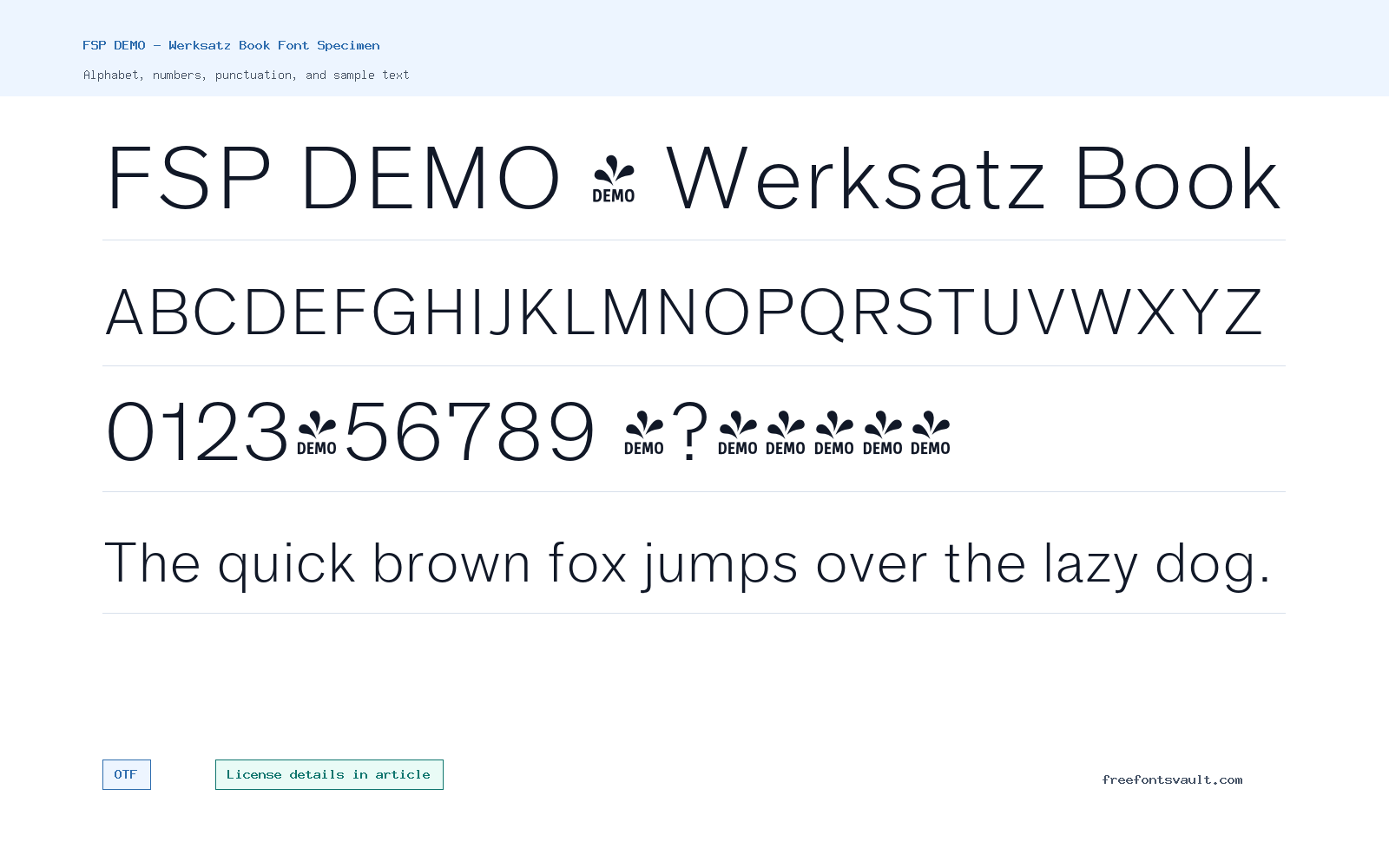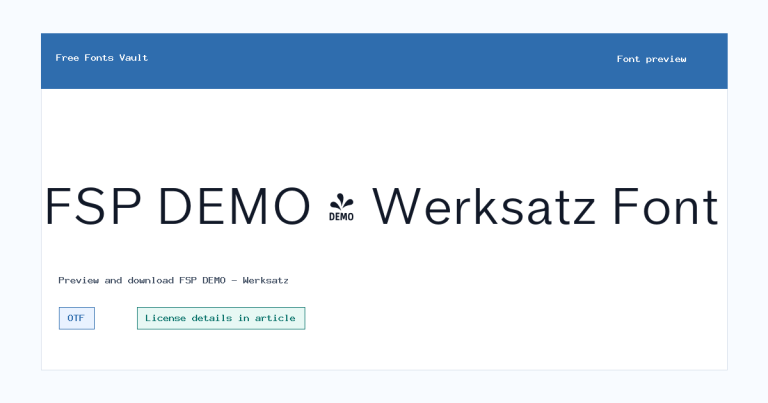
FSP DEMO - Werksatz Book
- Designer Moritz Kleinsorge
- Foundry Identity Letters
FSP DEMO – Werksatz Book font.
Werksatz Book is a regular-weight OTF font connected with Moritz Kleinsorge and Identity Letters. The downloadable file is the Book style, so it is best tested first in the preview tool with the exact words you plan to use.
About Werksatz Book
Werksatz Book is listed as a normal style with a 400 weight, which usually makes it the central text weight in a type family rather than a bold display cut. Since the font file is an OTF, it should work in most modern design apps and desktop font managers. Use the preview to check its spacing, punctuation, numbers, and mixed-case words before deciding how it fits your project.
For practical use, start with short paragraphs, menu labels, quotes, captions, or clean editorial headings. If you are testing it for body text, try several sizes and line heights, because a Book cut can feel different on screen than in print. Pair it with a more expressive display font only if the two styles stay clearly separate; for simple layouts, it may work better with quiet sans serif or serif companions.
When comparing it against other text faces, judge the rhythm of ordinary words rather than only a decorative sample. Try sentence case, a few long lowercase words, and a short paragraph. That gives a better sense of whether Werksatz Book can carry calm reading text or should stay in smaller supporting roles.
- Regular style with 400 font weight
- Normal, non-italic style suitable for baseline text testing
- Editorial-style headings and subheadings
- Short paragraphs and reading samples
- Captions, labels, and simple interface text
- Brand drafts, mockups, and layout testing
- Neutral typography tests where readability matters more than decoration
Werksatz Book is credited to Moritz Kleinsorge, with Identity Letters listed as the foundry.
What weight is Werksatz Book?
The listed variant is a regular style with a 400 weight.
Who designed Werksatz Book?
The font is credited to Moritz Kleinsorge, with Identity Letters listed as the foundry.